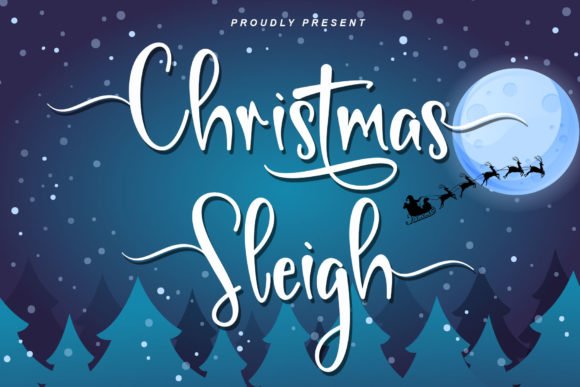
Get Ready to Deck the Halls with the Christmas Sleigh Font
As the snowflakes start to fall and the holiday season is in full swing, I find myself daydreaming about the perfect Christmas party. The twinkling lights, the warm fireplace, and of course, the festive decorations that bring everything together. For designers like us, it’s all about creating an atmosphere that’s both modern and elegant, with a dash of holiday cheer. That’s where the Christmas Sleigh Font comes in – a beautiful handwritten font that’s sure to add a touch of magic to your designs.
With its PUA encoded glyphs and swashes, the Christmas Sleigh Font is a game-changer for designers who want to add a personal touch to their work. Whether you’re creating invitations, greeting cards, or even t-shirt designs, this font is the perfect addition to your holiday design arsenal. So why settle for ordinary when you can make your Christmas even more festive with the Christmas Sleigh Font?
Christmas Sleigh Font Key Features
- Font Styles: This font offers a range of styles, including Regular, Italic, Bold, and Bold Italic, to cater to different design needs.
- Size: The font size ranges from 8 to 72 points, providing flexibility for use in various design contexts.
- Resolution: The font is optimized for high-resolution displays, ensuring crisp and clear text even at larger sizes.
- Unique Characteristics: The font features a unique, hand-drawn design with intricate details, giving it a festive and whimsical feel.
- Characters and Glyphs: The font includes a wide range of characters, including uppercase and lowercase letters, numbers, and special characters, making it suitable for various design applications.
Designer Review: Christmas Sleigh Font
Overall, I’d say the Christmas Sleigh Font has some great qualities, but it’s not without its limitations. Here’s what I think:
- The font’s playful and festive vibe is perfect for holiday-themed designs.
- The bold lines and geometric shapes give it a fun, whimsical feel.
- The font is highly legible, even at smaller sizes, making it great for use in titles and headings.
- The font’s design is a bit too simplistic for more complex or professional projects.
- It may not be the best choice for designs that require a more subtle or understated look.
- The font’s lines can become a bit fuzzy or pixelated when scaled up or used at very small sizes.
The Christmas Sleigh Font is a fun and festive choice for holiday-themed designs, but it may not be the best fit for more complex or professional projects. If you’re looking for a playful and whimsical font to add some holiday cheer to your designs, this could be a great choice. However, if you need something more sophisticated or versatile, you may want to consider other options.
For the best results, use the Christmas Sleigh Font in conjunction with festive graphics, such as snowflakes, holly, and reindeer.
Experiment with different font sizes and styles to create visual interest and hierarchy in your design.
The Christmas Sleigh Font is perfect for:
- Creating festive holiday cards and invitations.
- Designing holiday-themed social media graphics and ads.
- Creating festive titles and headings for holiday-themed projects.